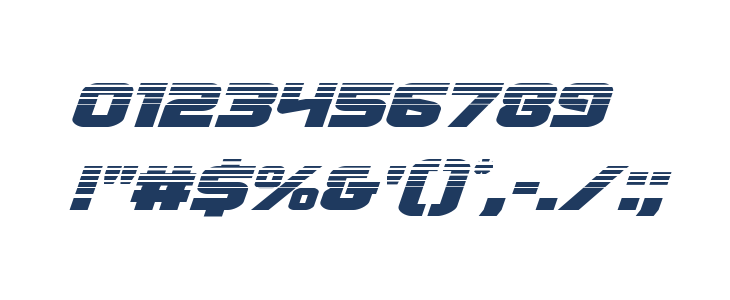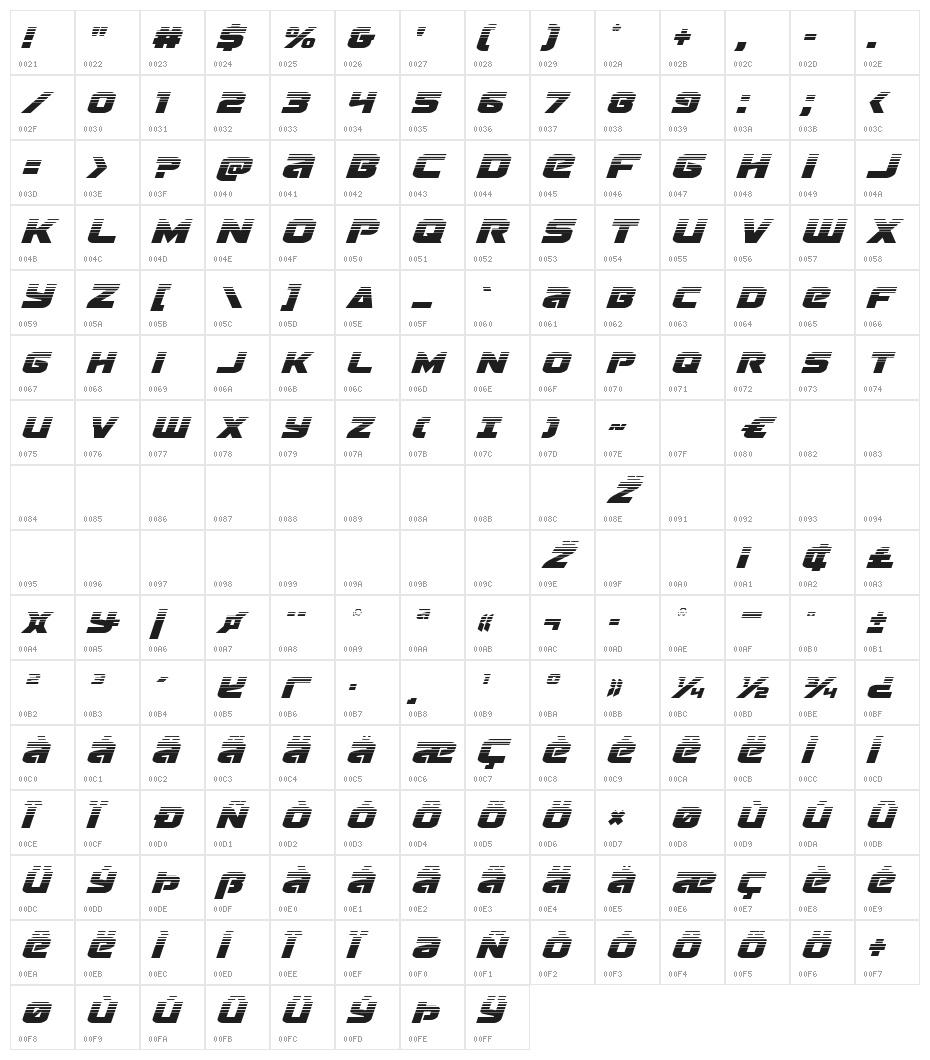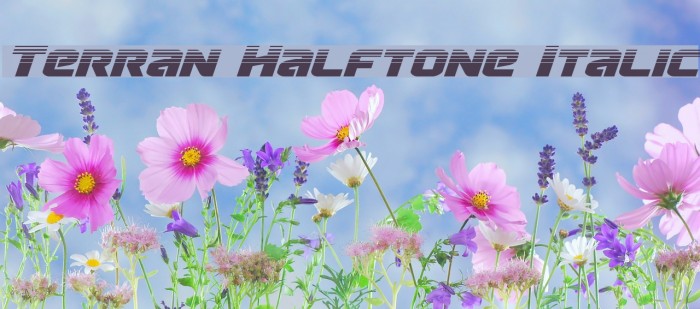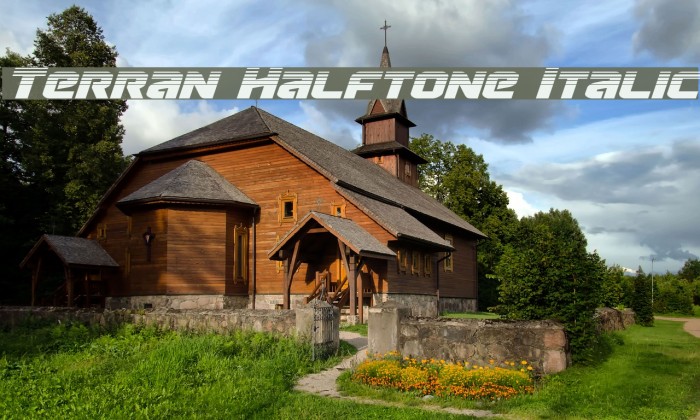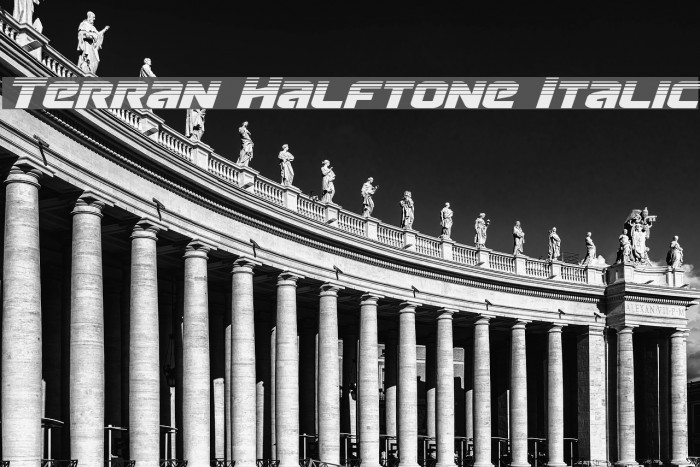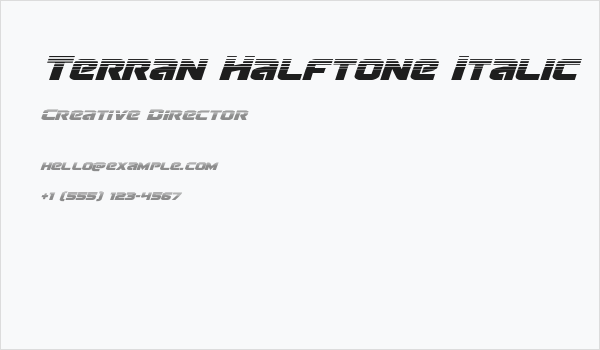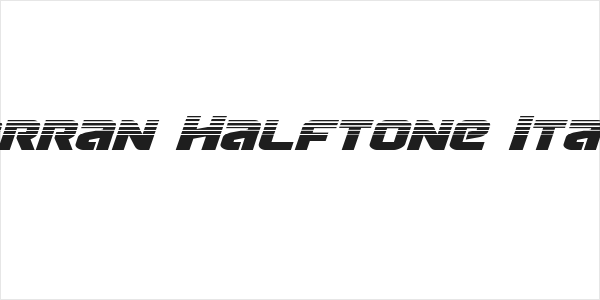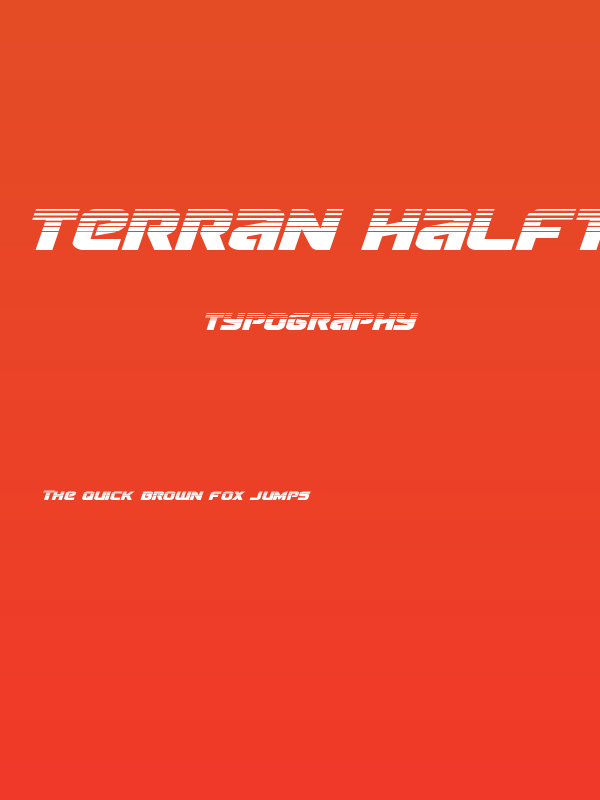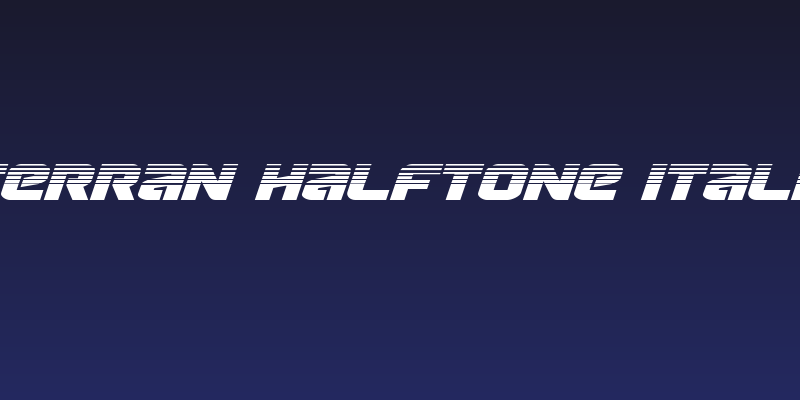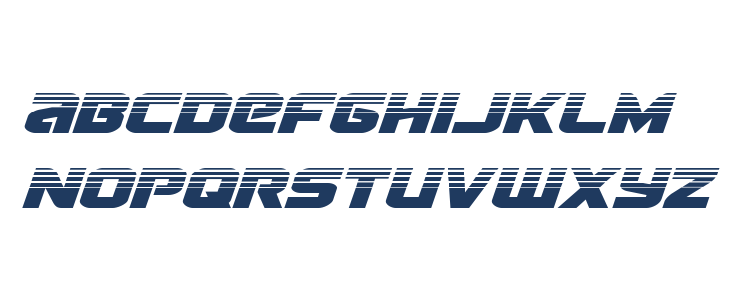
Terran Halftone Italic Font
Terran Halftone Italic Description
This font features a bold and dynamic design with a futuristic and sporty aesthetic. The characters are italicized, adding a sense of motion and speed. Each letter is composed of thick, solid strokes with a halftone effect, creating a unique visual texture. The uppercase and lowercase letters maintain a consistent style, while the numbers and special characters complement the overall design. The font's boldness and distinct style make it suitable for attention-grabbing headlines and modern branding projects.